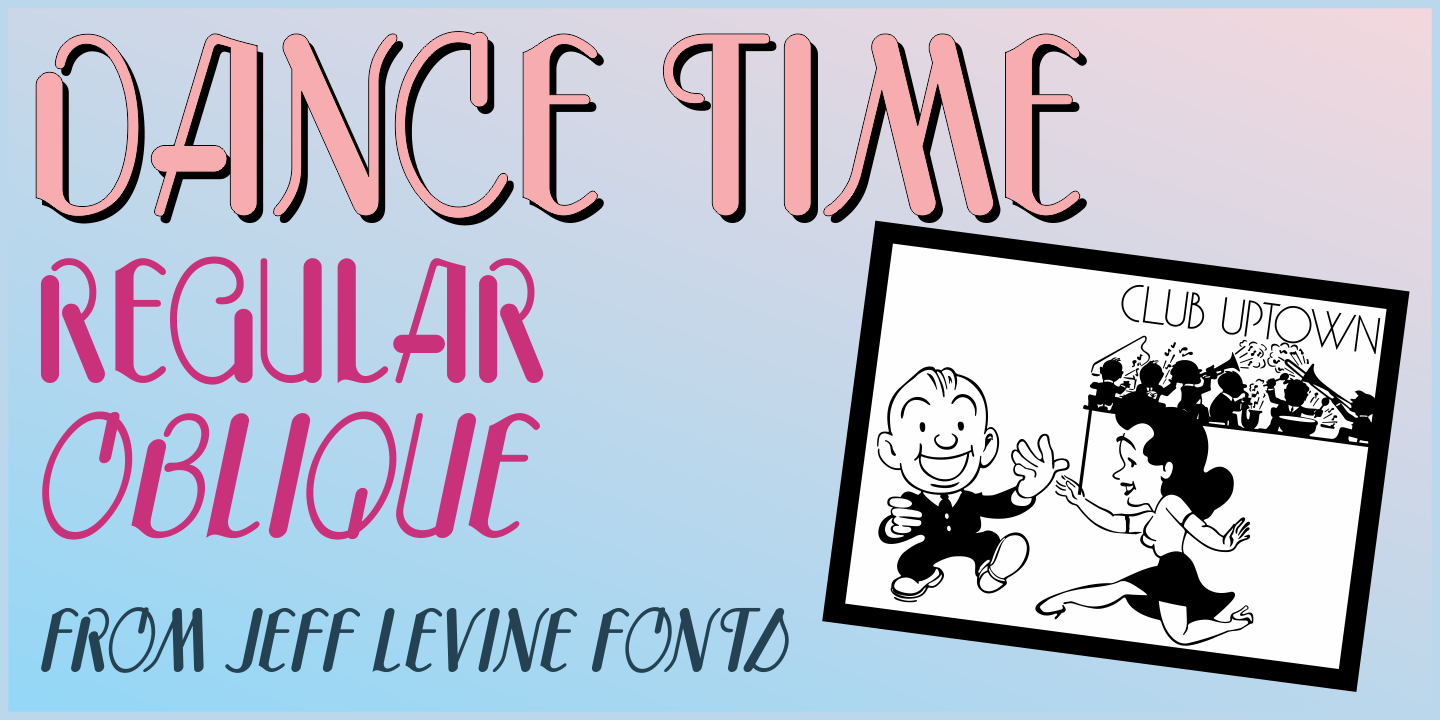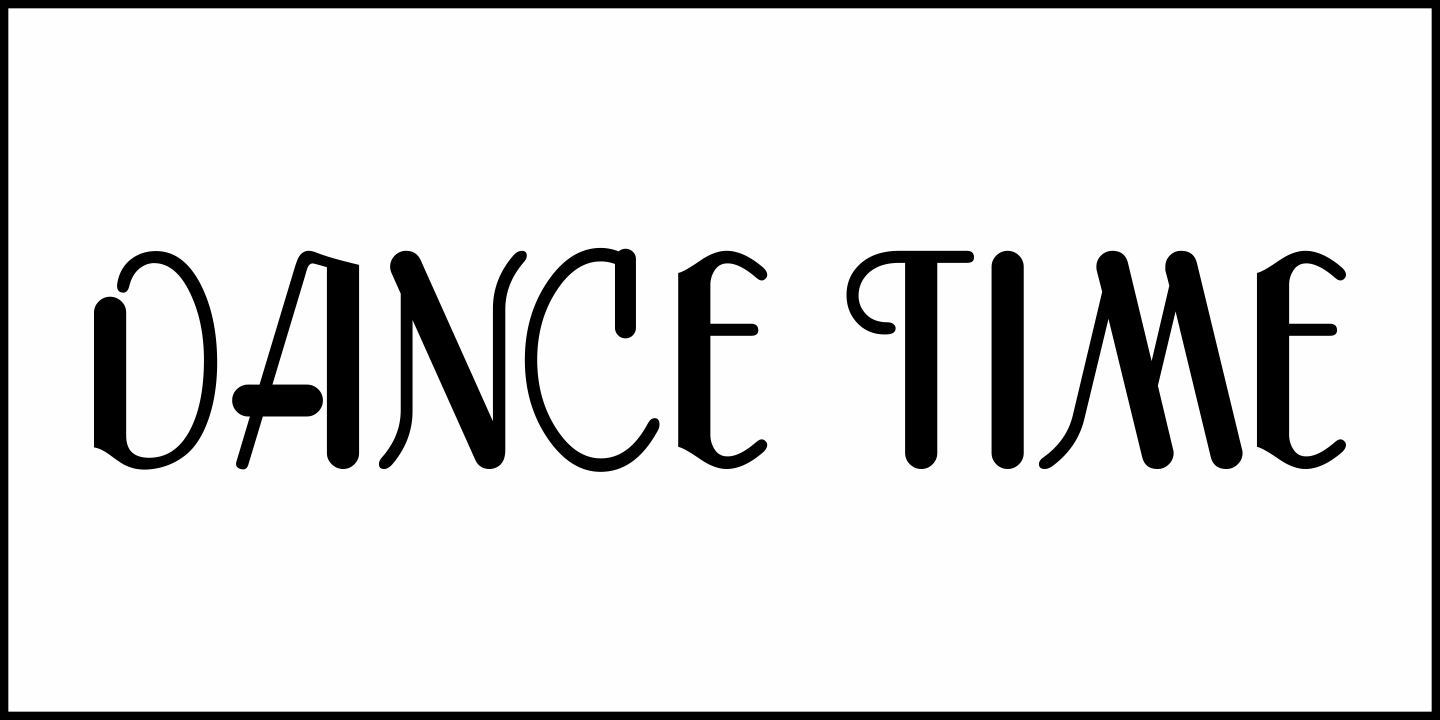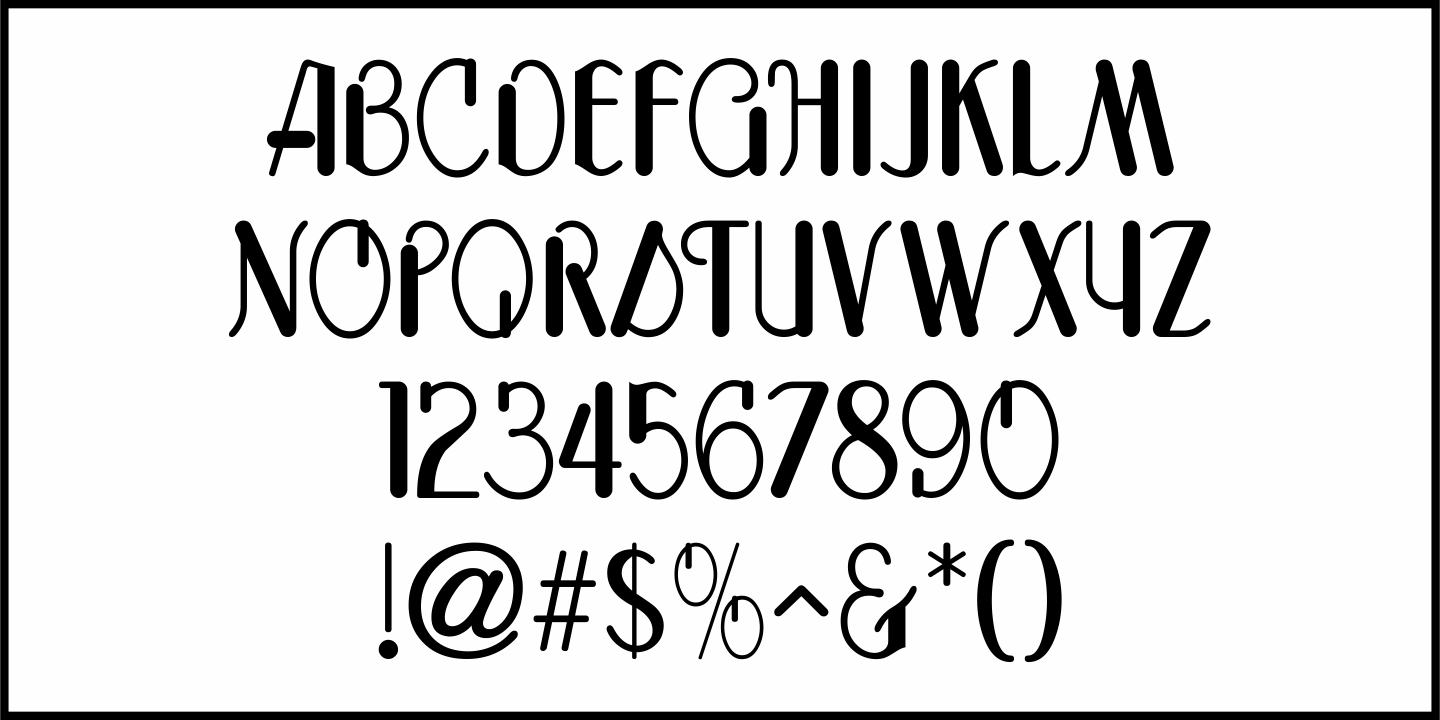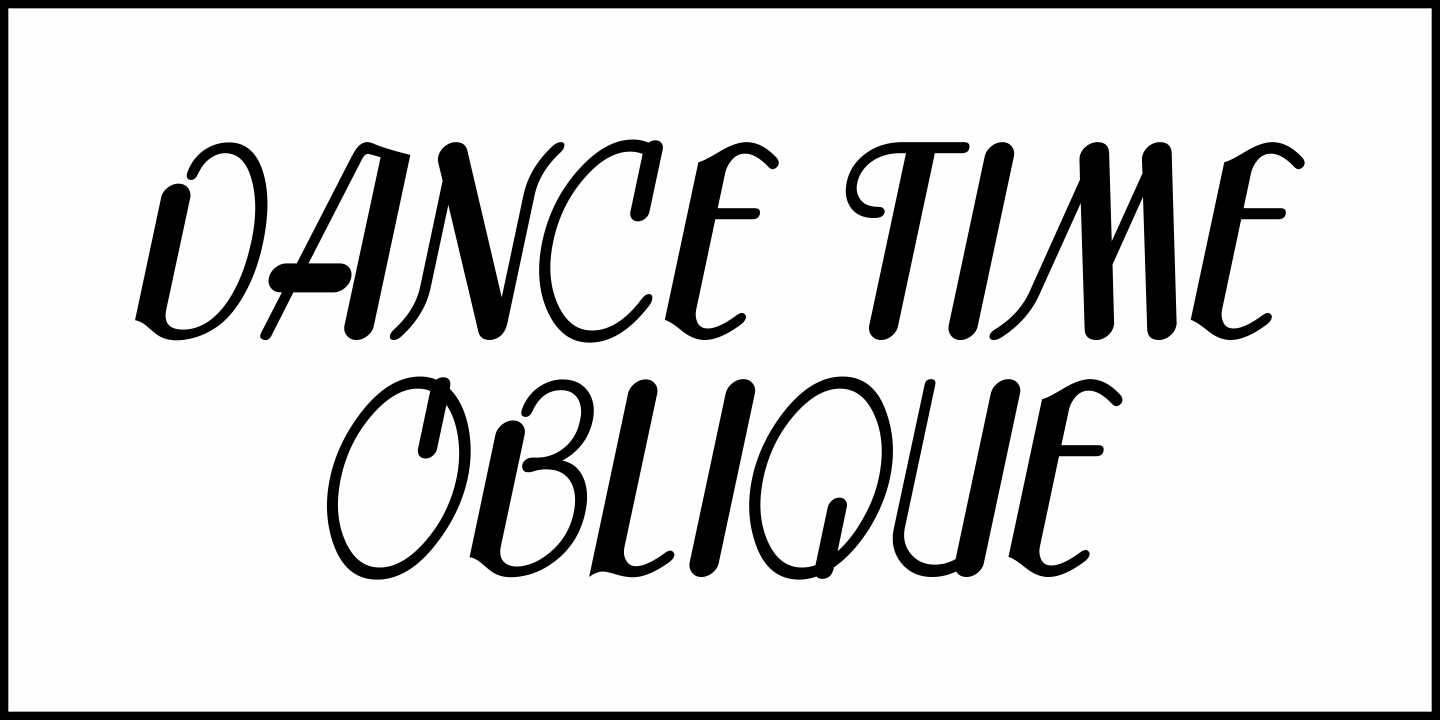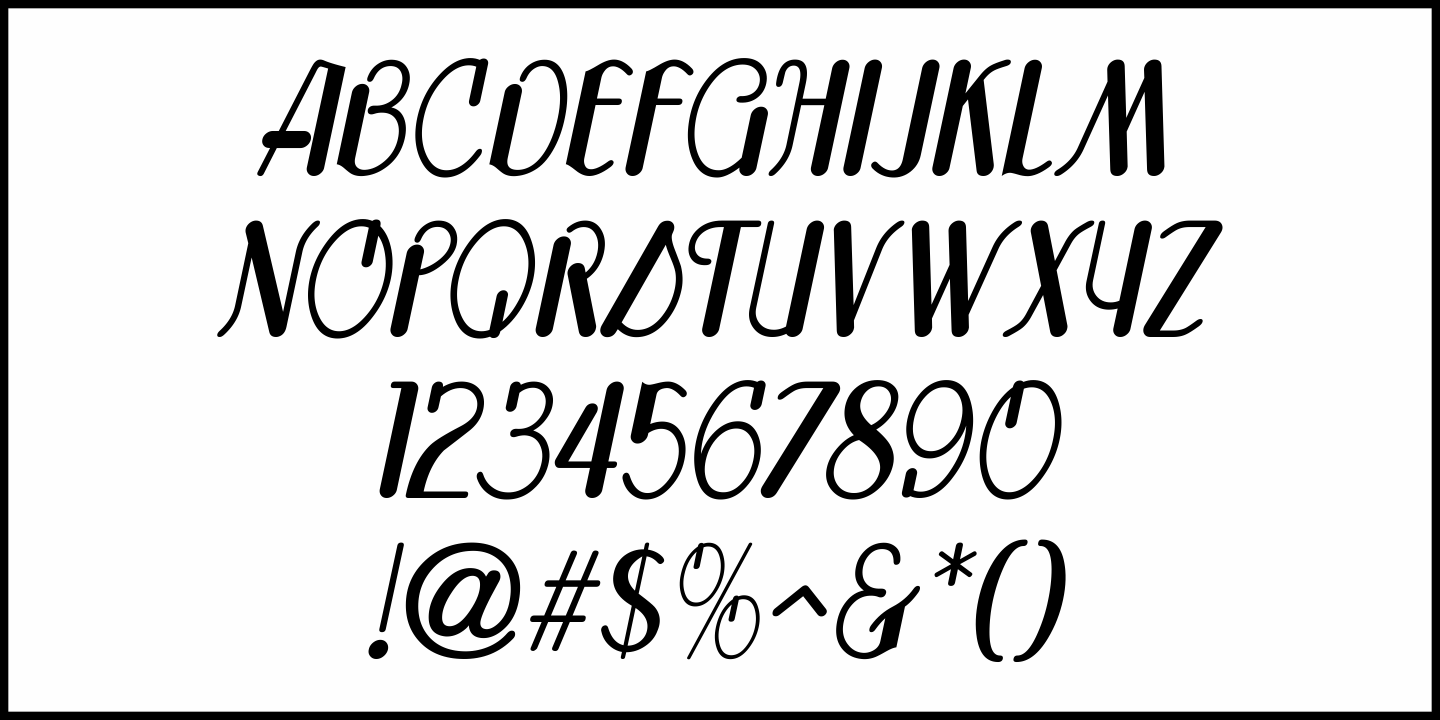
Dance Time
The words “Benny Goodman & His Orchestra” on an appearance poster for the band from 1936 were rendered in a beautiful semi-script style of hand lettering.